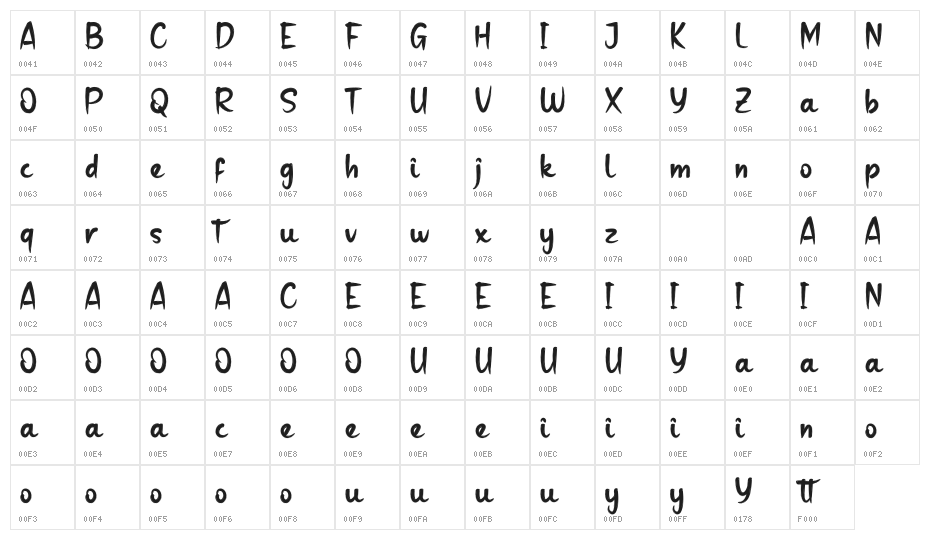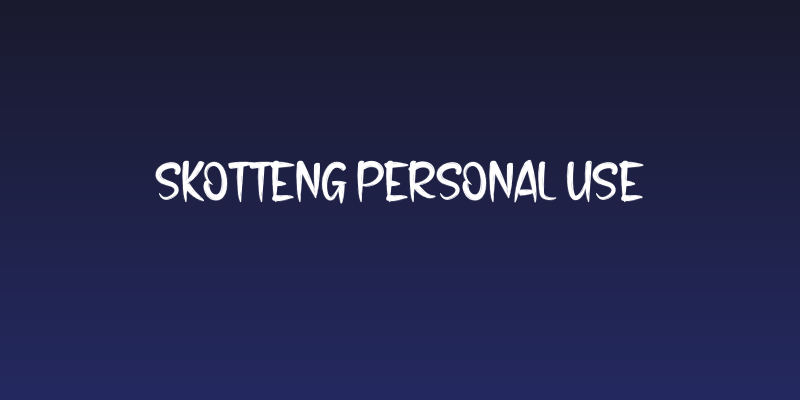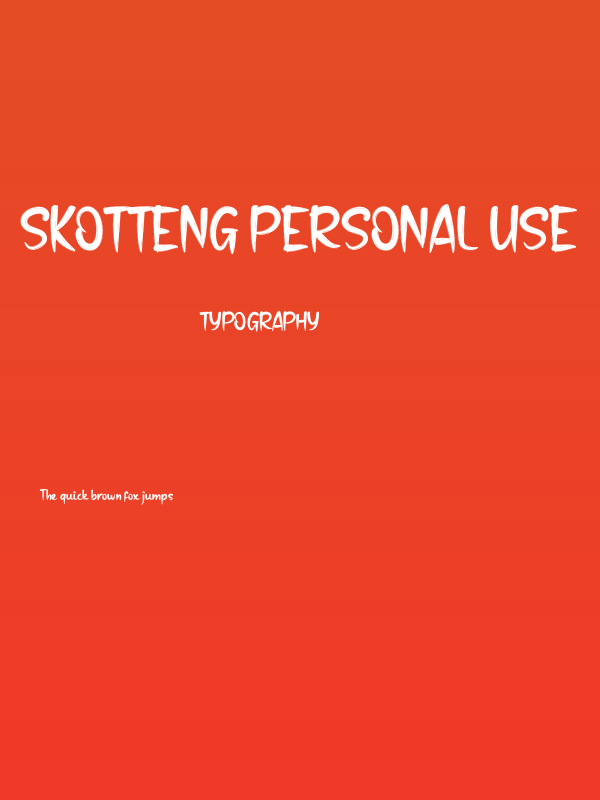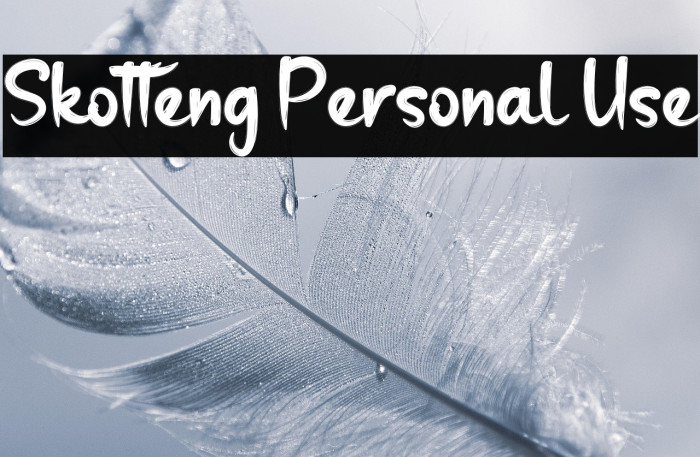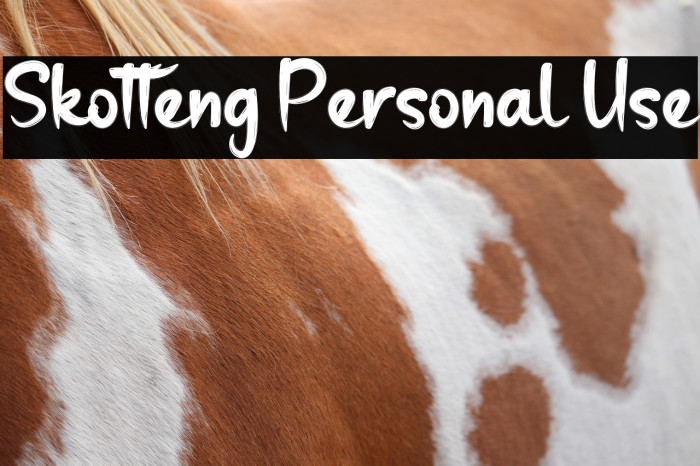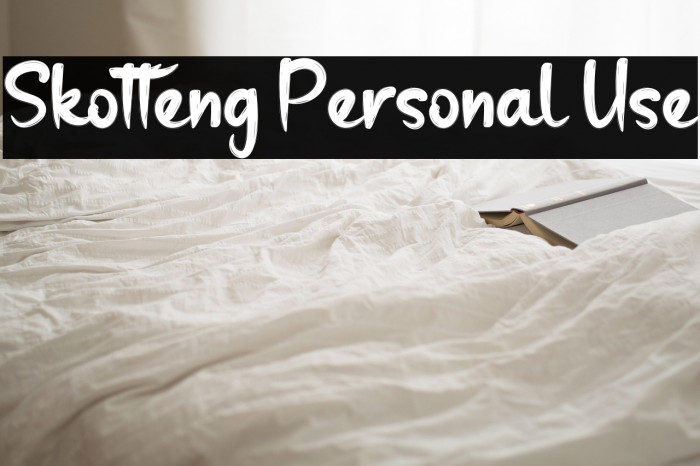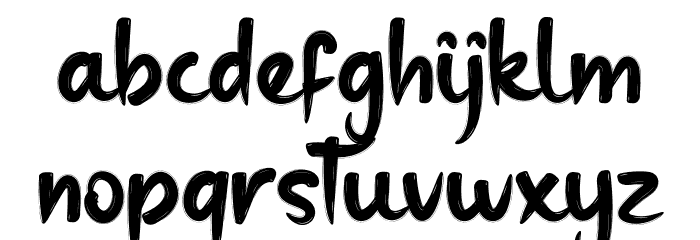
Skotteng Personal Use Font
Skotteng Personal Use Description
This font features a bold, expressive style with a handwritten appearance. The uppercase letters are dynamic and slightly irregular, giving a sense of movement and energy. The lowercase letters maintain this fluidity, with some characters having unique loops and curves that add personality. The strokes are thick and varied, contributing to a high contrast between the thick and thin parts of the letters. This font is ideal for projects that require a personal touch or a creative flair, such as artistic posters, event invitations, or branding for creative industries.
| Proposed Projects | Artistic posters, event invitations, creative branding, personal projects. |